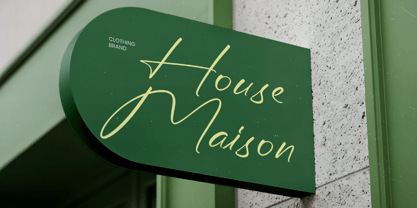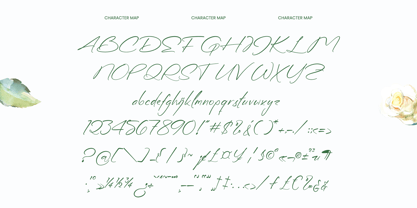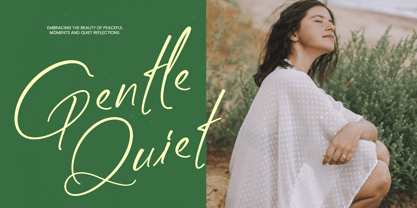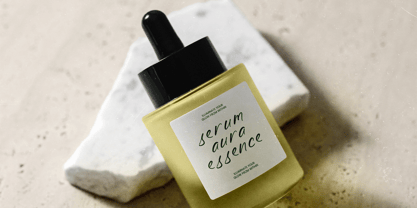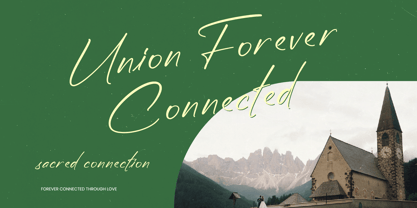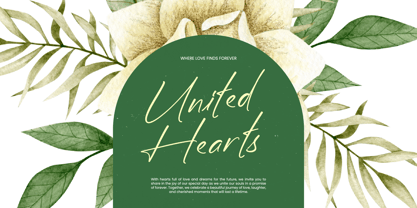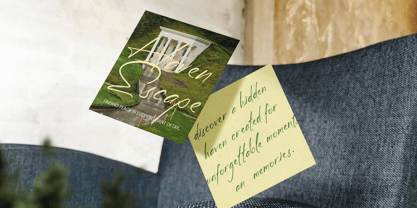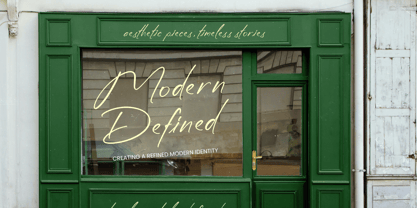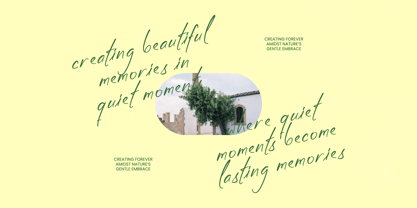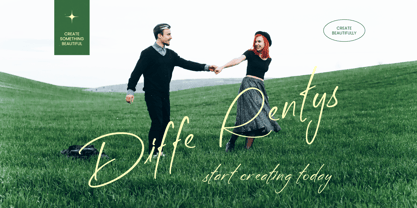
Diffe Rentys
von Stylishtype Studio
Die Schriftfamilie Diffe Rentys wurde von Heru Utama Putra entworfen und von Stylishtype Studio veröffentlicht. Diffe Rentys enthält 2 Stile und Familienpaketoptionen. Mehr über diese Familie
Elevate your creative vision with a typeface that embodies effortless grace and sophisticated script aesthetics. Diffe Rentys - Romantic Handwritten is meticulously crafted to offer a natural flow and handcrafted charm that resonates with modern elegance. Its fluid strokes and organic movement provide a unique human touch, making it an essential tool for designers seeking to convey intimacy and premium quality in every character.
Designer: Heru Utama Putra
Foundry: Stylishtype Studio